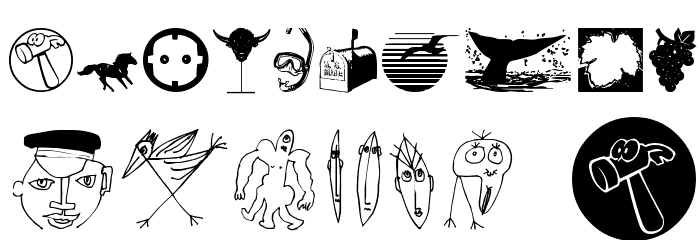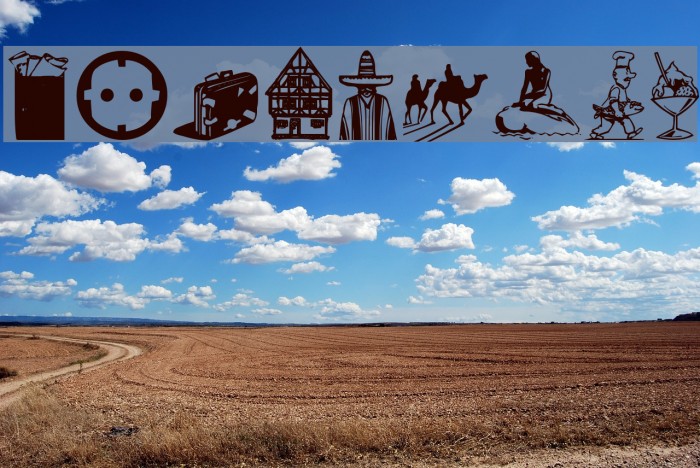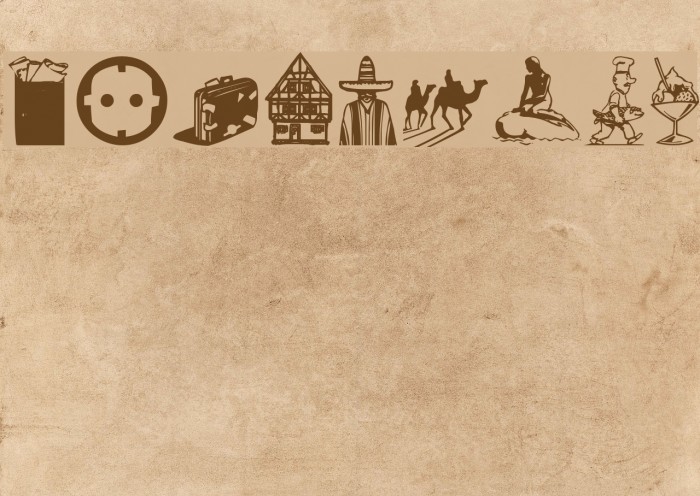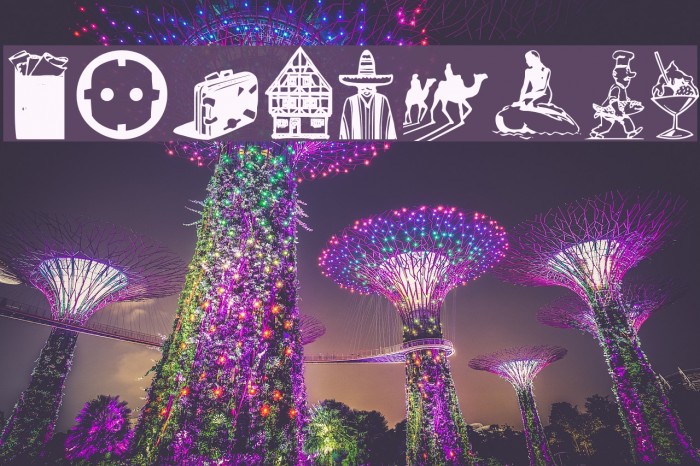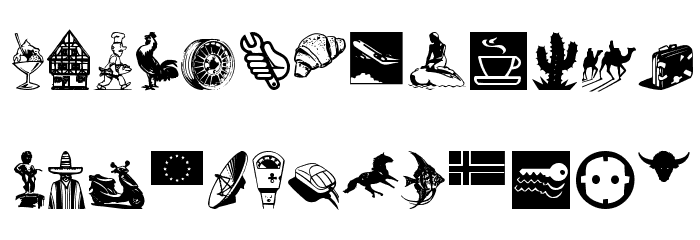
Symbolica Font
Symbolica Description
A decorative dingbat and pictogram font featuring a diverse collection of detailed, high-contrast black-and-white illustrations, including objects, animals, people, symbols, and abstract shapes. Each glyph is unique and visually distinct, with a playful and eclectic style.
Eclectic pictogram font with detailed black-and-white illustrations from Uncategorized fonts.
- Proposed Projects: Posters, educational materials, infographics, children’s books, creative branding, icon sets.
- Overall Style: Decorative, Playful, Eclectic
- Use Case: Icons, Illustrations, Decorative elements